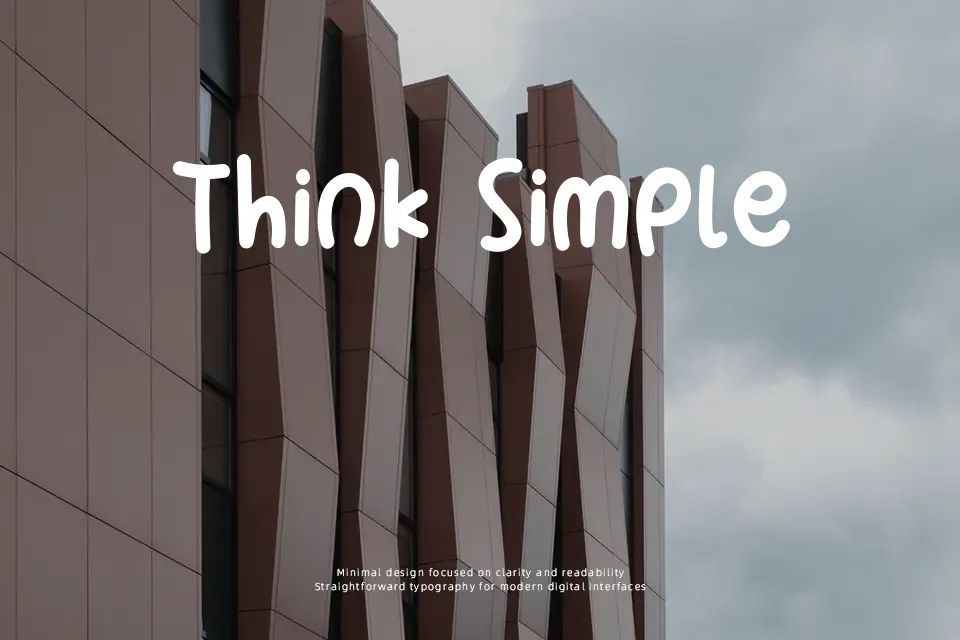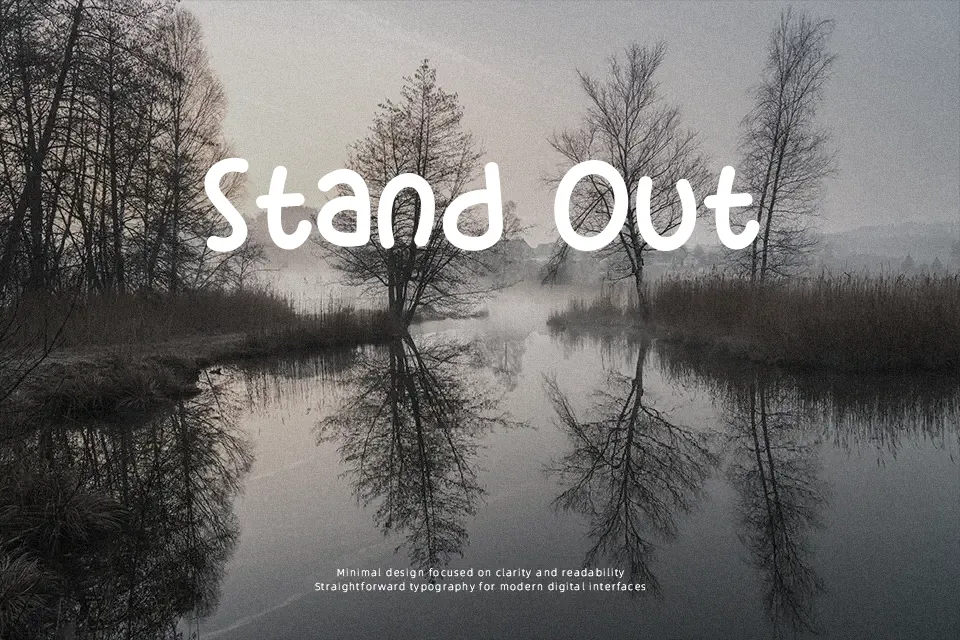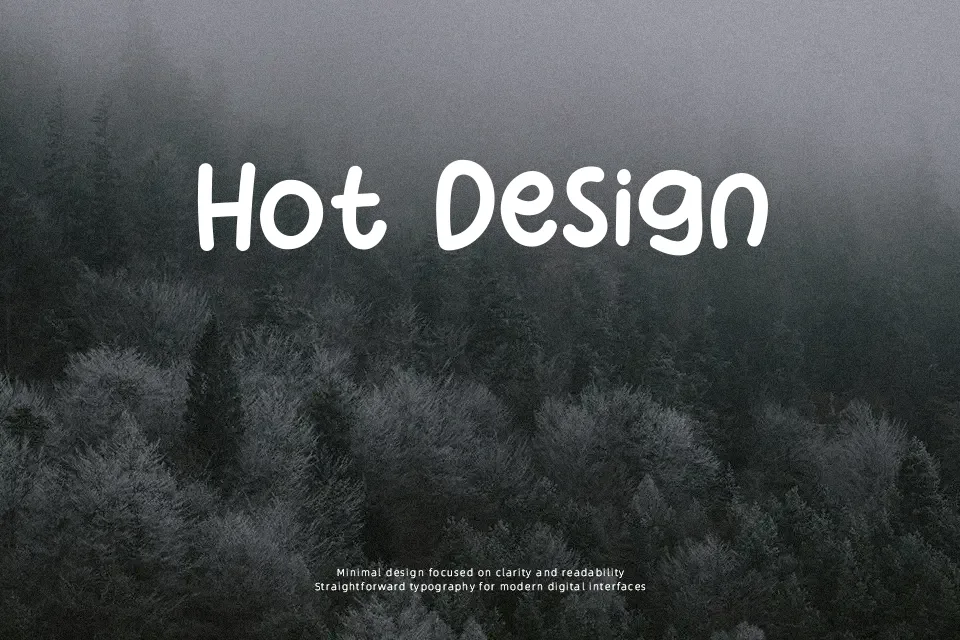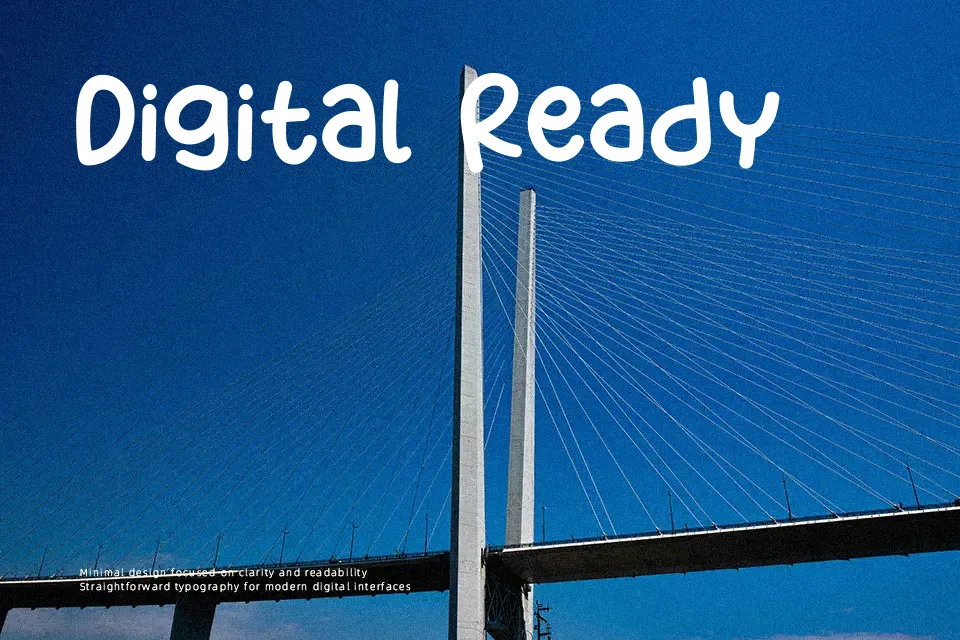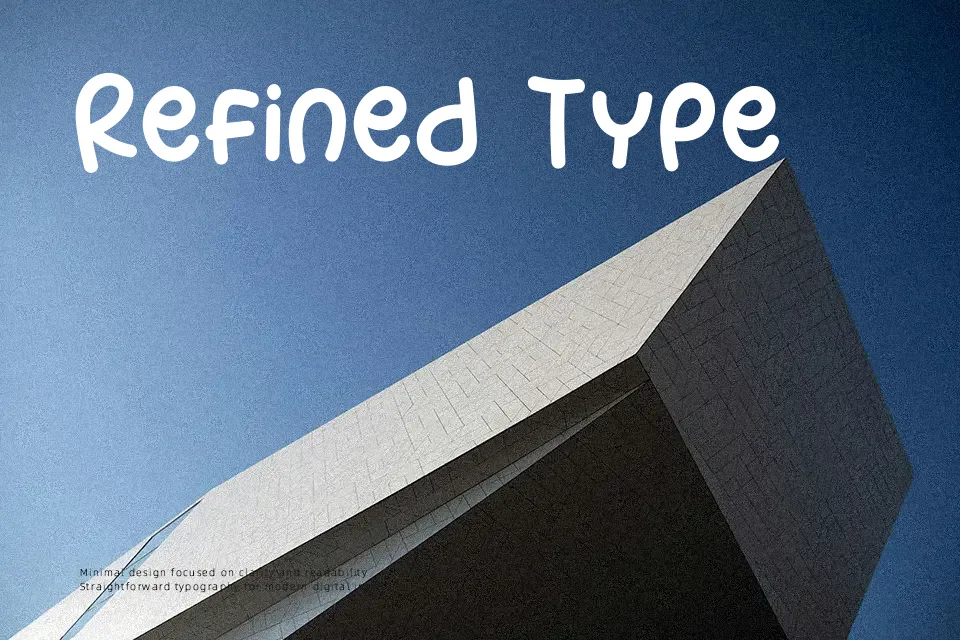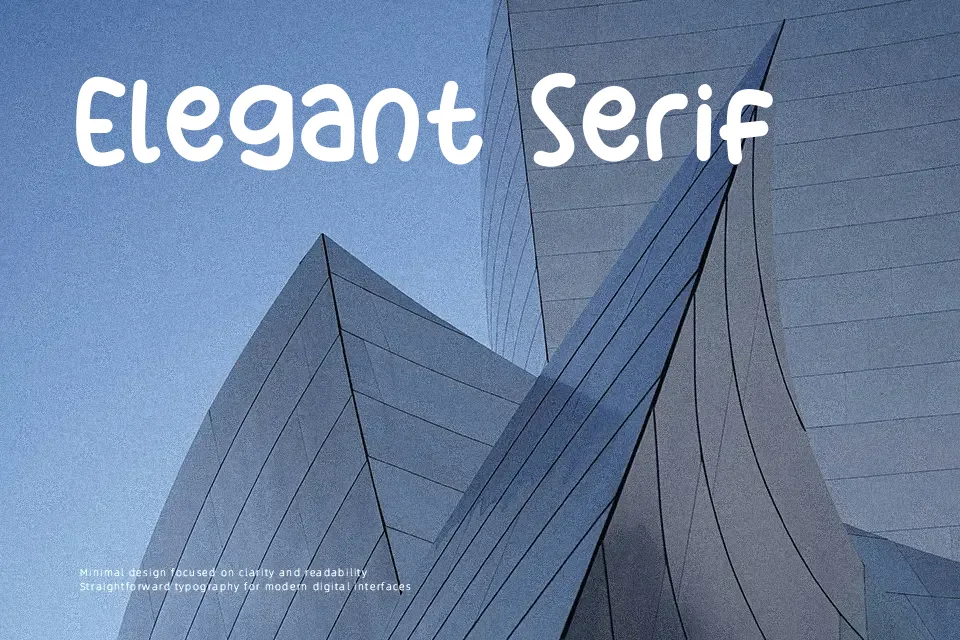
Banana Days Font
Banana Days leans into thick, bubbly strokes, soft corners, and relaxed spacing that immediately read as casual and friendly. Its cartoon-style structure feels informal and slightly goofy, so it works when you want lettering to feel approachable rather than polished. Short headlines for children’s events, playful logo drafts for food brands, or bright quote graphics are where it holds up best. On the other hand, the exaggerated shapes make longer copy feel visually heavy and tiring to read. It tends to shine when used sparingly as a focal graphic element and loses impact when pushed into dense paragraphs or strictly professional layouts.
kids party invitations
snack or dessert branding
playful social media titles
minimal, ultra-clean interfaces
Perfect for branding, kids, and logo, with a creative and cartoon style.